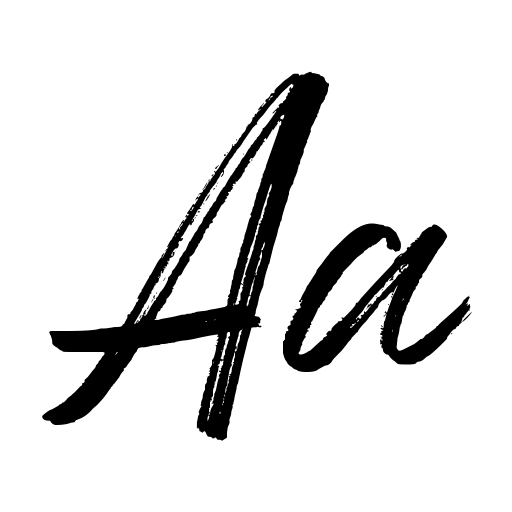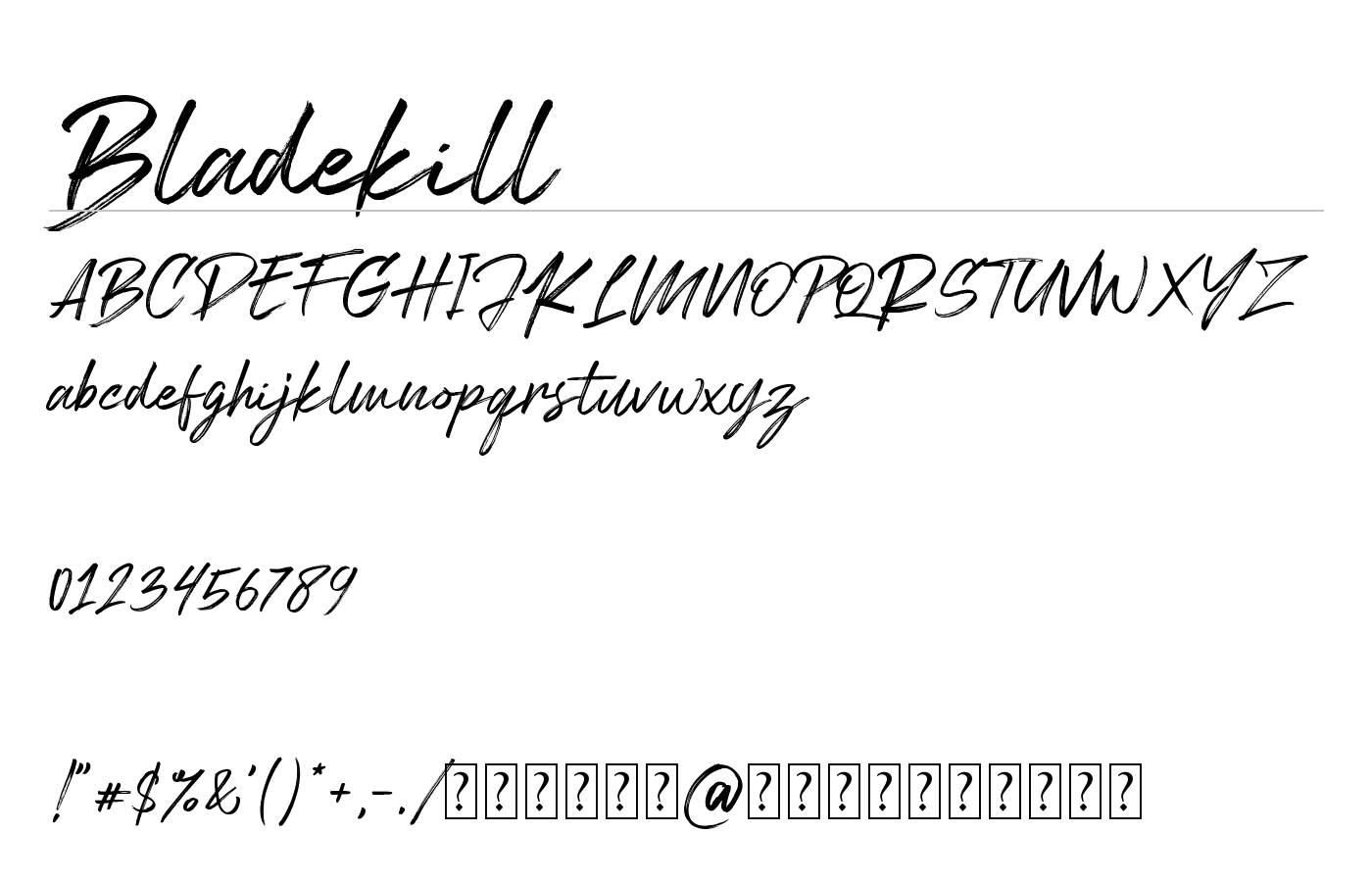
Bladekill is a bold, energetic script font with a hand-painted feel, featuring dynamic brush strokes and a lively texture that gives it a raw, expressive character. Its tall, slightly condensed letterforms with a noticeable contrast in stroke widths make it perfect for designs that need a fresh, artistic vibe. This font works especially well for creative branding, posters, and headlines where a sense of personality and movement is desired.
Bladekill Font
About Bladekill Font
| Font family | Bladekill Font |
| Designer | Muhammad Sirojuddin |